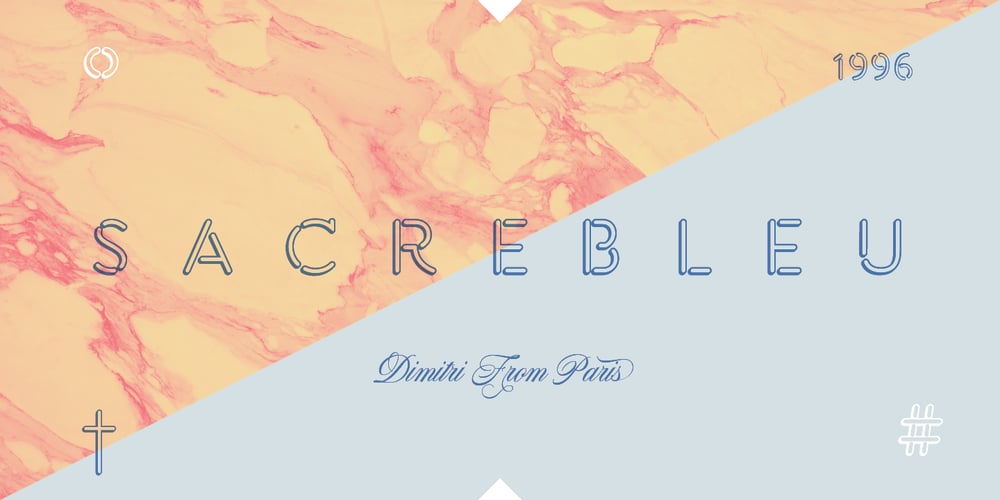
Orbita
Orbita font
Orbita Font Family was designed by Giuseppe Salerno, Paco González and published by Resistenza. Orbita contains 4 styles and family package options. Introducing Orbita, a vibrant and playful display font that injects new life into the beloved ‘Stencil Creek’ skeleton. Maintaining its inherent freshness and grace, Orbita takes inspiration from its predecessor and adds a dynamic twist, resulting in a font full of movement and personality. The innovative pop-up effect creates a mesmerising visual illusion, with strokes appearing to move in various directions, adding an extra dimension to your designs.This font family comprises four distinct versions, each offering its own unique flair and versatility. Whether you’re designing headlines, posters, book covers, cards, wrapping paper, invitations, T-shirts, labels, packaging, or any other creative project, Orbita provides an extensive range of options to bring your ideas to life.